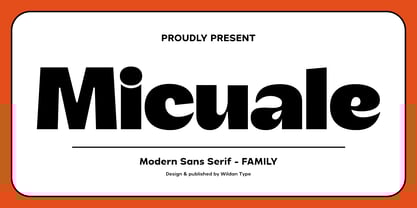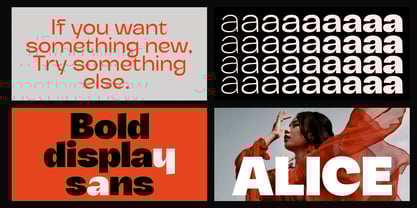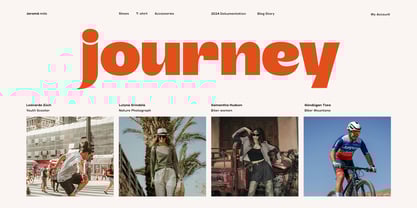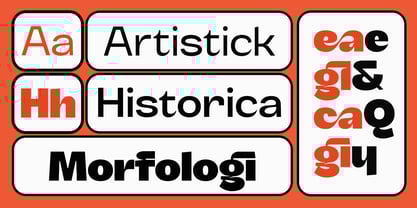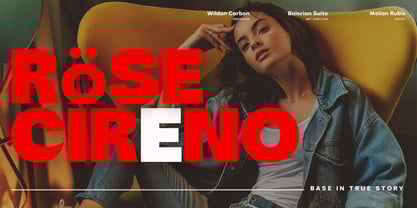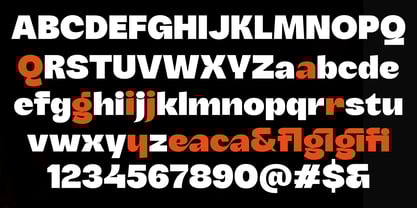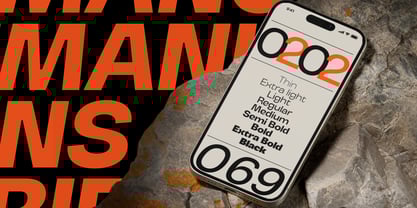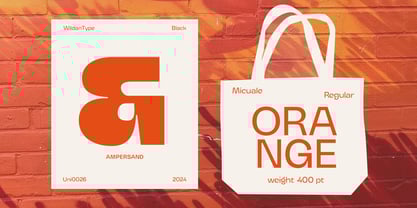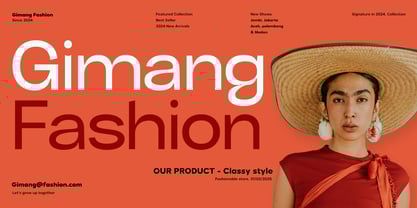
Micuale
by Wildan Type
The Micuale Font Family was designed by Wildan Suprian Syah and published by Wildan Type. Micuale contains 18 styles and family package options.
Micuale is a sans-serif display font designed with a modern, semi-minimalist aesthetic. Its clean letterforms exude a strong, professional feel. The consistent and bold thickness makes this typeface striking and highly legible. Micuale’s eye-catching design is perfect for capturing attention in any project, such as headlines or posters. Additionally, this font is well-suited for various design endeavors that require a contemporary and polished appearance. Micuale is available in several thicknesses that can be an option to adjust the character to suit your project design